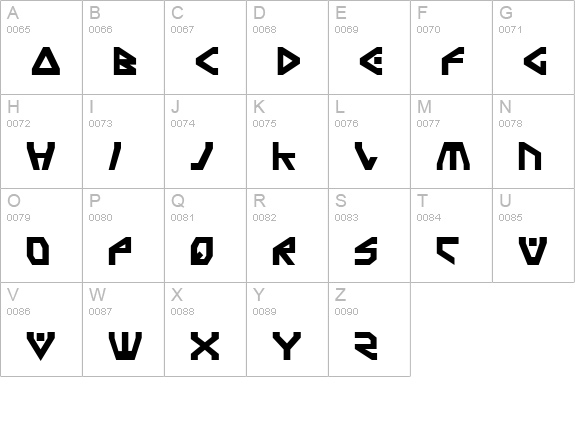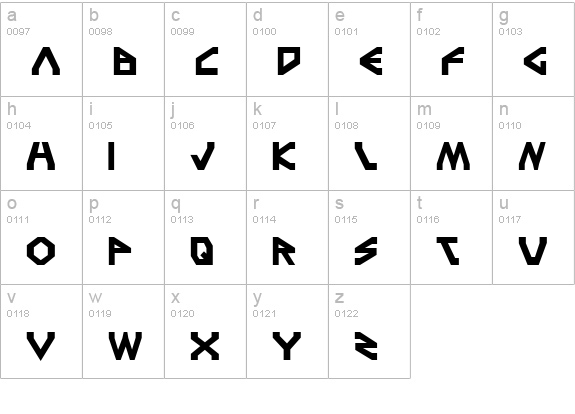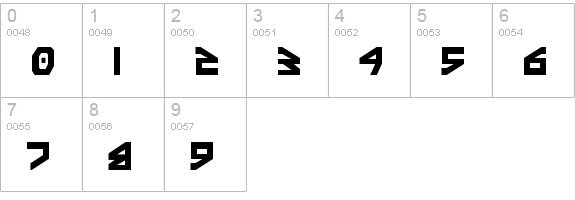
Terra Firma Bold is a strong, high-contrast variant in the Terra typeface family \xE2\x80\x94 well suited to headlines, attention-grabbing titles, and strong calls-to-action.
Introducing Terra Firma Bold, a striking and commanding font that exudes confidence and strength. With its bold and powerful letterforms, this typeface is perfect for making a statement in any design project. Whether you're creating eye-catching headlines, attention-grabbing posters, or impactful logos, Terra Firma Bold will leave a lasting impression. What sets Terra Firma Bold apart is its versatility. It seamlessly blends contemporary style with a touch of classic elegance, resulting in a font that is both modern and timeless. Its bold weight and strong presence make it ideal for headlines and titles, while its legibility ensures readability even at smaller sizes. But that's not all – Terra Firma Bold is also free. Yes, you read that right. This extraordinary font is freely available to download at FontsMarket.com. So, whether you're a professional designer looking to enhance your typographic toolbox or a creative enthusiast exploring new possibilities, Terra Firma Bold is a must-have addition. With its wide range of characters, including uppercase letters, lowercase letters, numerals, punctuation marks, and multilingual support, Terra Firma Bold offers endless creative possibilities. Its clean and well-defined lines make it easy to integrate into various design styles, from sleek and modern to bold and edgy. Get ready to make a bold statement with Terra Firma Bold. Download this exceptional font for free at FontsMarket.com and unleash your creativity like never before. With Terra Firma Bold, your designs will stand out from the crowd and leave a lasting impression on your audience. So, why wait? Start exploring the power of Terra Firma Bold today!